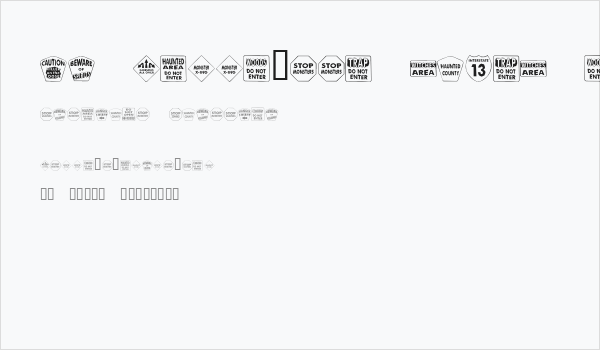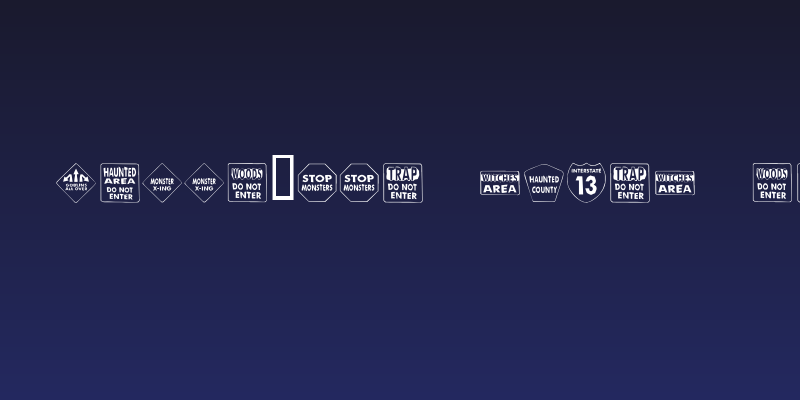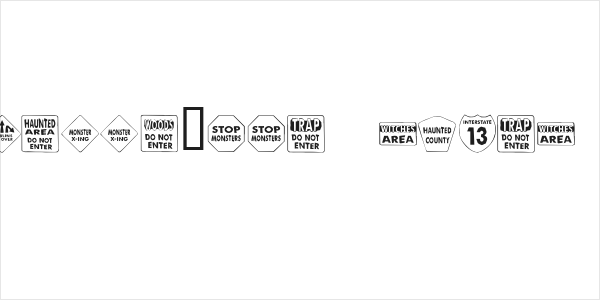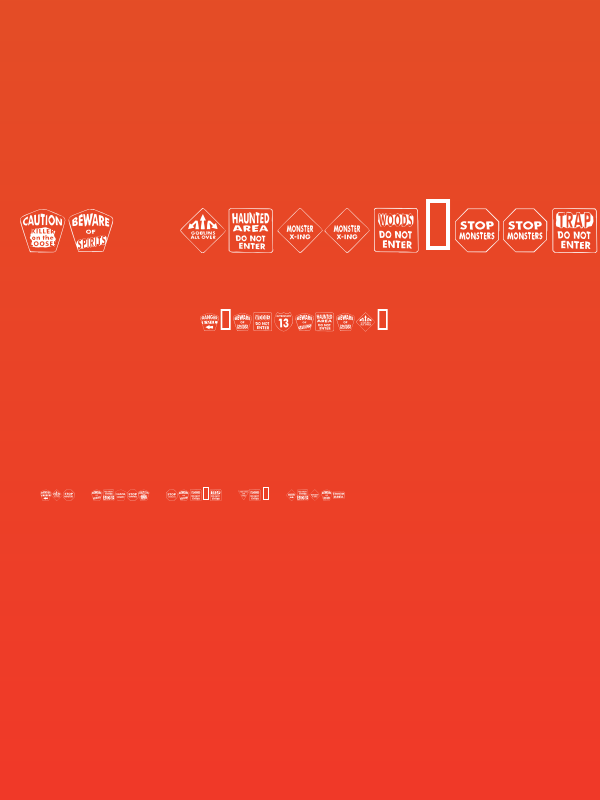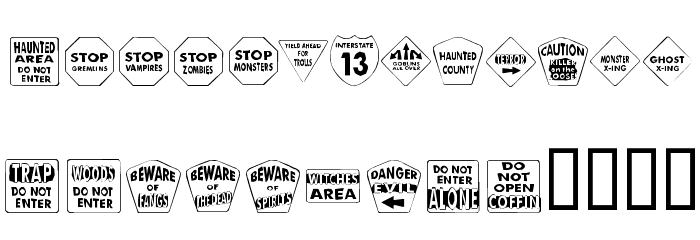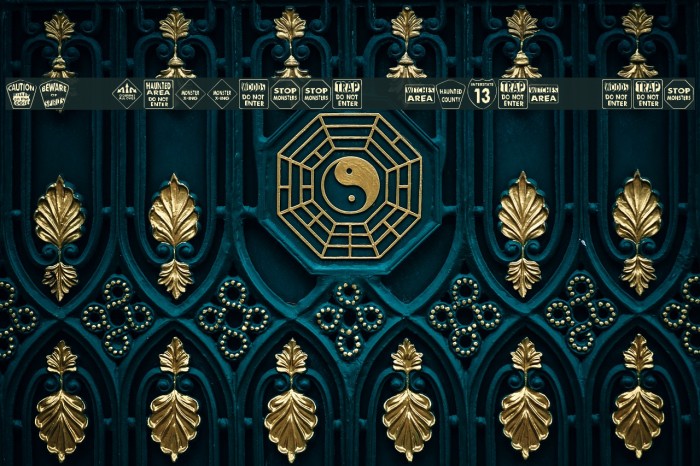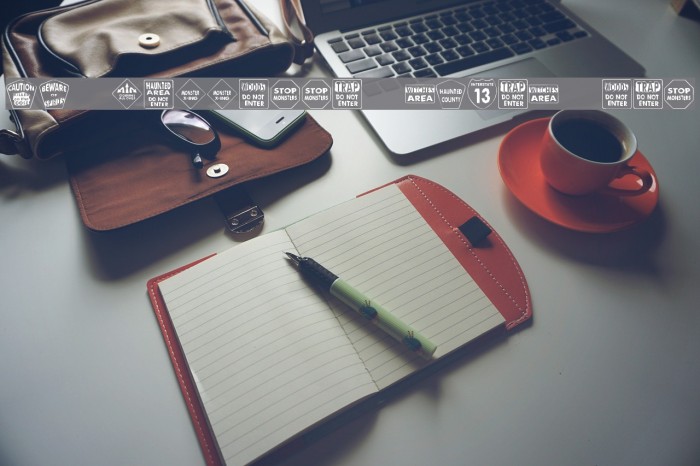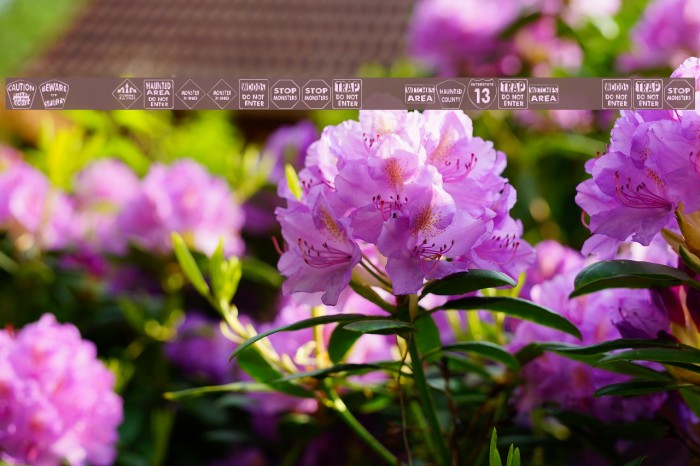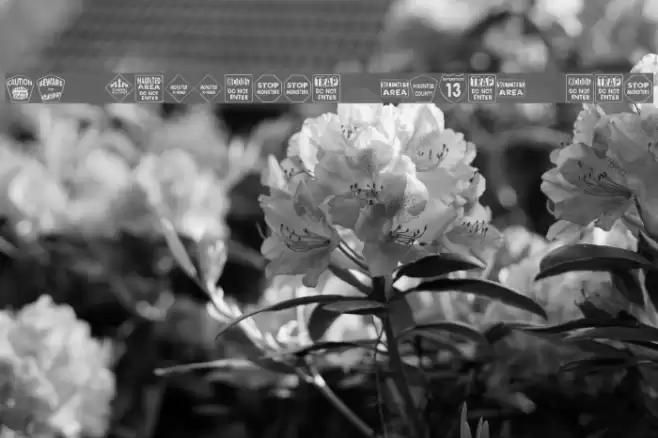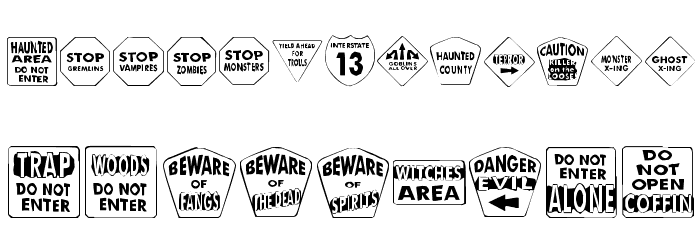
KR Halloween Signs One Font
KR Halloween Signs One Description
This font is a playful and thematic collection of Halloween-inspired signs, each designed to mimic the appearance of warning and caution signs. The characters are bold and prominently feature thick, black outlines with white fill, creating a high contrast that ensures visibility. The style is decorative and whimsical, with each character enclosed in various shapes like octagons, diamonds, and rectangles, reminiscent of road signs. The font includes a variety of Halloween-themed phrases such as 'Haunted Area', 'Stop Vampires', and 'Beware of Spirits', each styled to evoke a sense of spooky fun. The overall design is perfect for creating a Halloween atmosphere, whether for party invitations, decorations, or themed events.
| Use Case | Logos, Posters, Invitations |
| Proposed Projects | Ideal for Halloween party invitations, event decorations, themed posters, and spooky signage. |